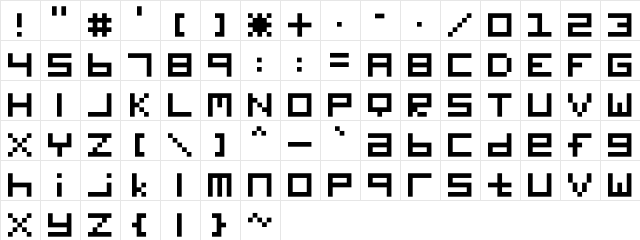
Digitalix Regular
Design Context for Digitalix Typeface
Digitalix channels digital-age aesthetics through its sharp, structured letterforms — ideal for brands that want to signal innovation.
Pro Tip: Try Digitalix with generous letter-spacing in UI labels and navigation — the geometric forms benefit from room to breathe.